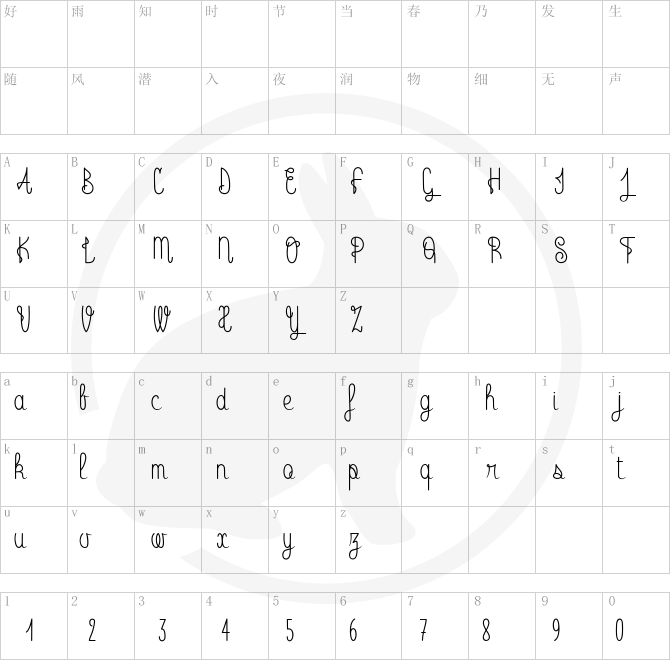
- Font Name:Radio Trust
- Full Name:Radio Trust
Radio-Trust.ttf is a very beautiful artistic font, Radio-Trust.ttf is widely used in the design and printing of various books and pictures,Radio-Trust.ttf has a strong visual impact,Radio-Trust.ttf is a commonly used font in newspapers, magazines and books, and is used in posters, e-commerce Poster design, store design, logo design, font design and other fields.Radio-Trust.